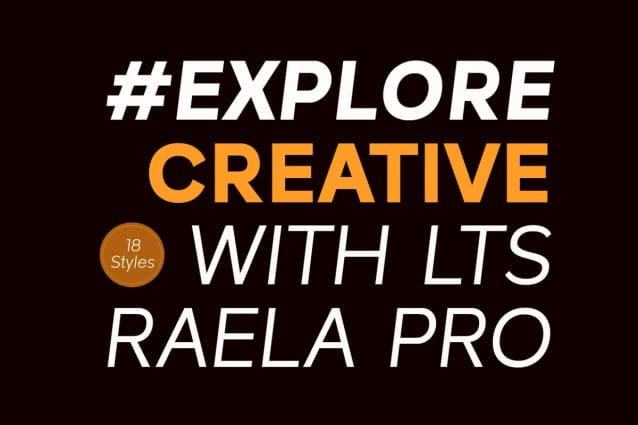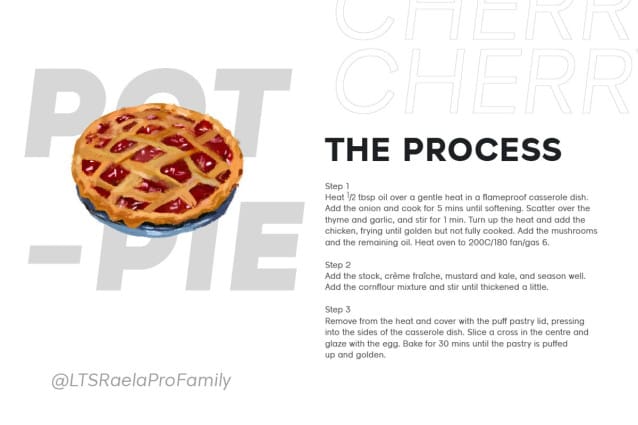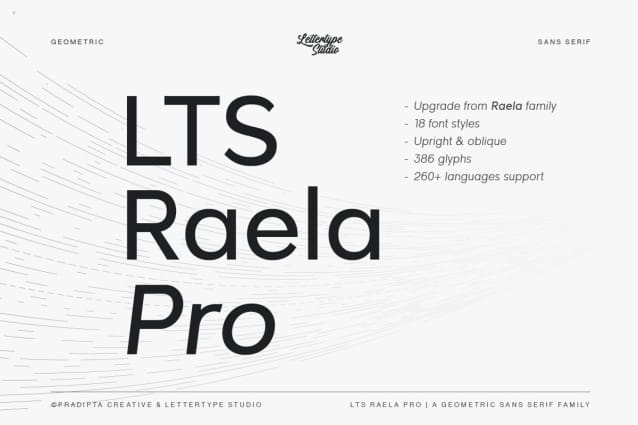
LTS Raela Pro Font
LTS Raela Pro Font is a meticulously crafted geometric sans serif typeface that delivers regularity and simplicity while exuding a bold and strong personality. Designed for readability and versatility, its proportional width, flat apex, closed aperture, and straight-cut stroke ends enhance its contemporary appeal.
Raela includes 18 weights, ranging from Thin to Heavy. OpenType features include Stylistic Alternates, figure variations (fractions, tabular lining, numerator, denominator), and broad Latin language support.